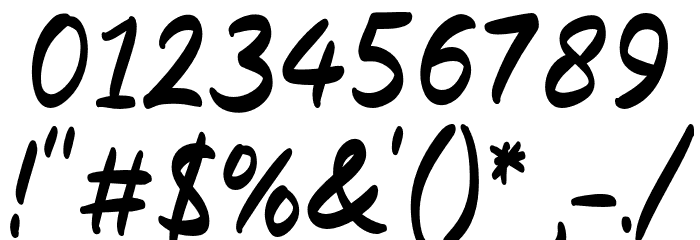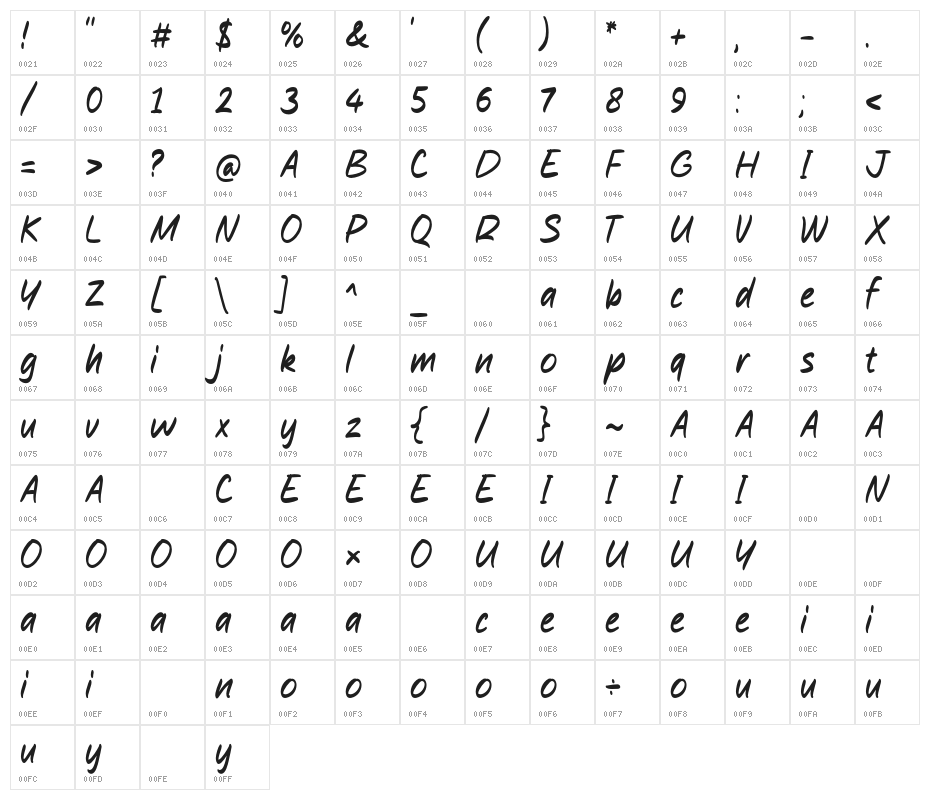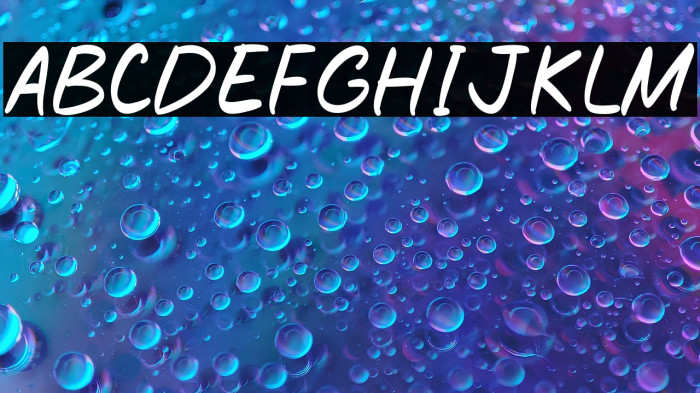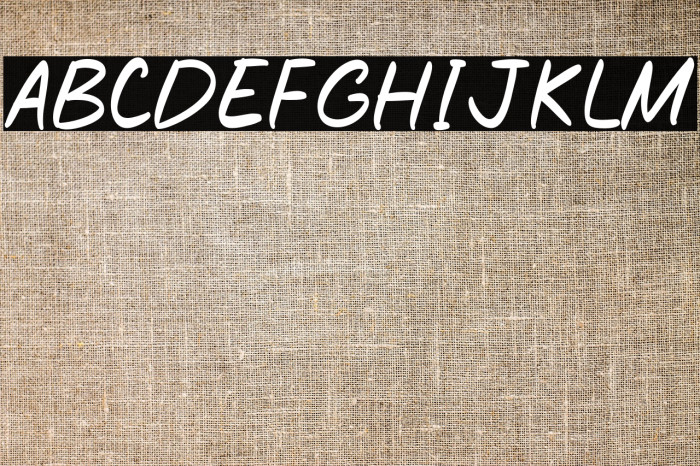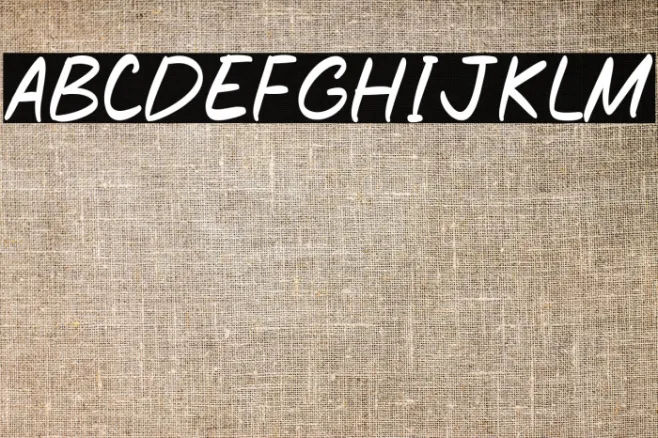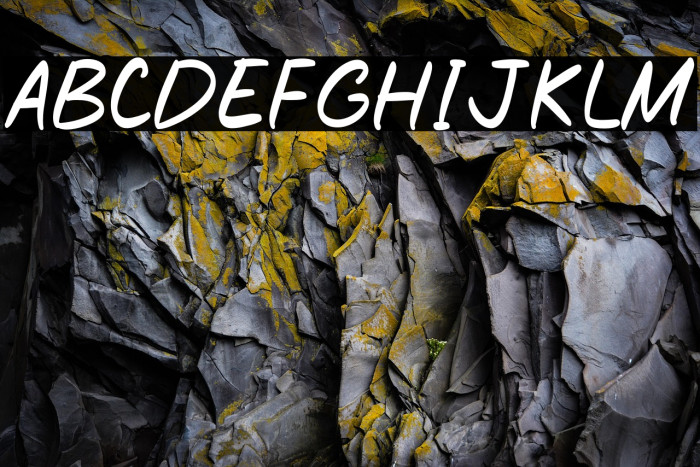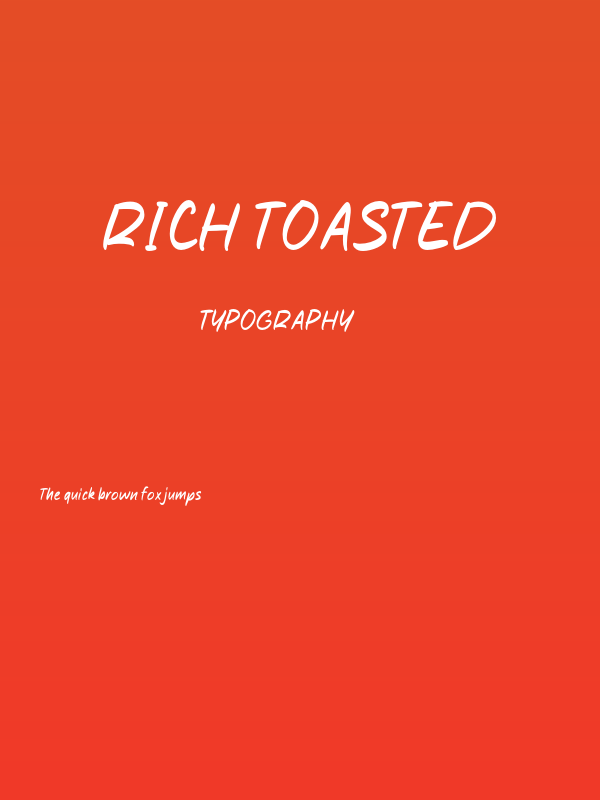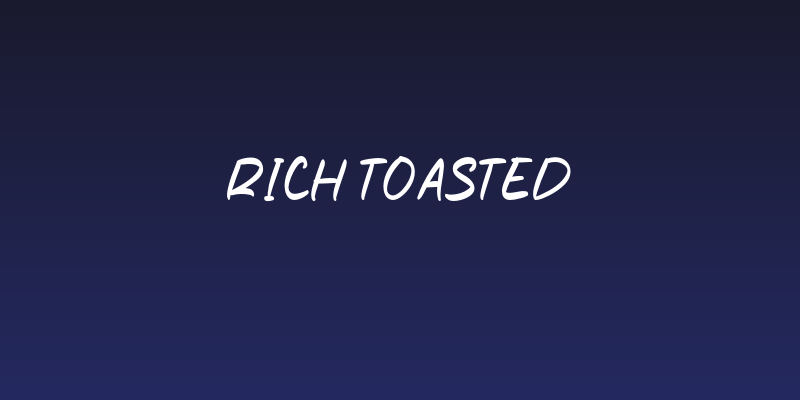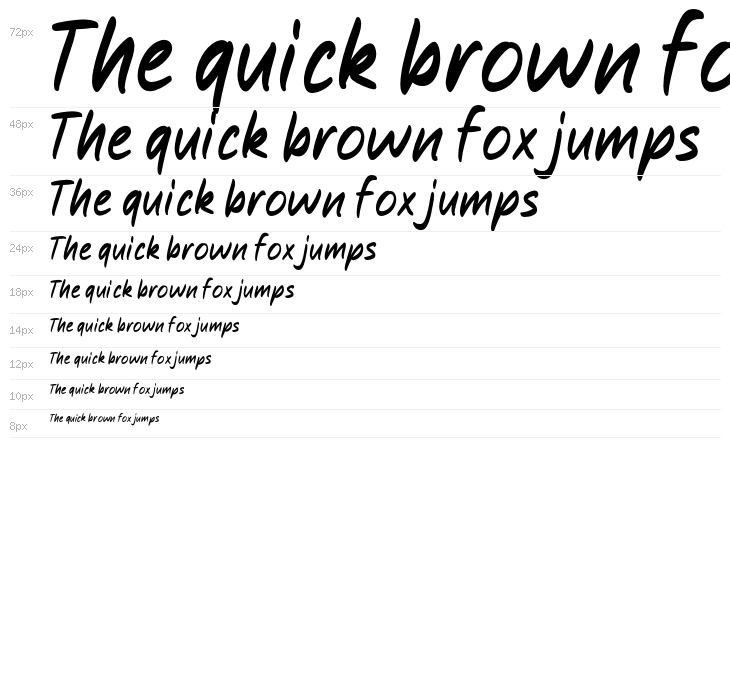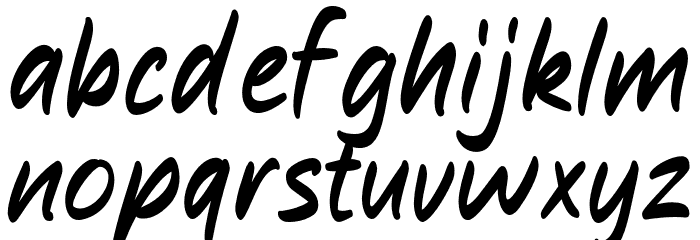
Rich Toasted Font
Rich Toasted Description
This font exudes a casual and energetic vibe, characterized by its handwritten style with a slight slant, giving it a dynamic and informal appearance. The strokes are smooth and fluid, resembling natural handwriting, which adds a personal touch to any text. The letters are well-spaced, ensuring readability while maintaining a lively flow. The numerals and special characters are consistent with the overall style, maintaining the same playful and approachable feel. This font is versatile, suitable for projects that require a friendly and engaging look.
| Use Case | Logos, Headlines, Informal Texts |
| Proposed Projects | Ideal for greeting cards, personal branding, social media graphics, and informal invitations. |